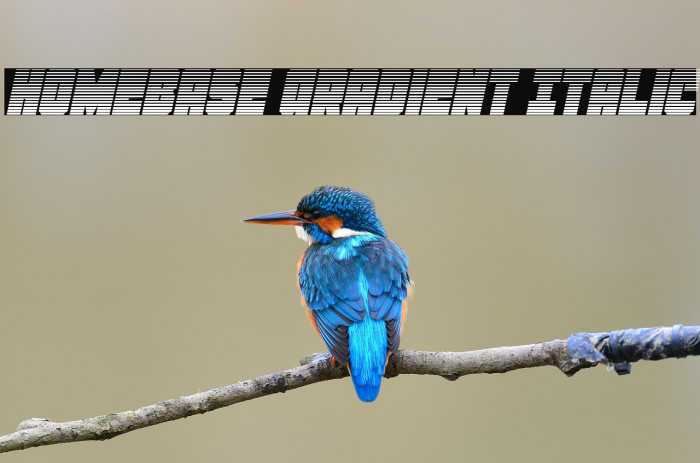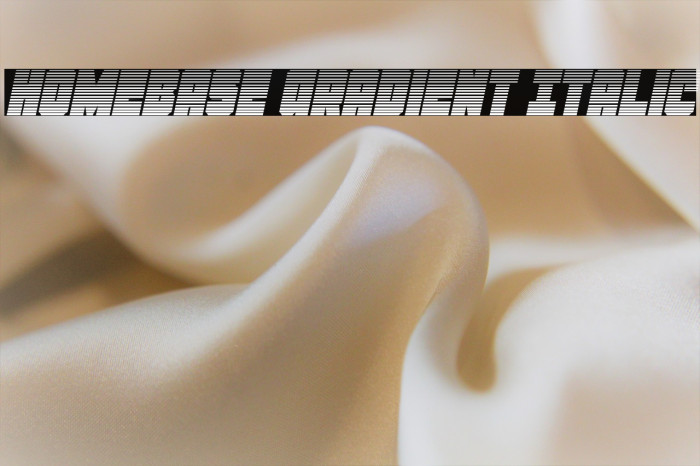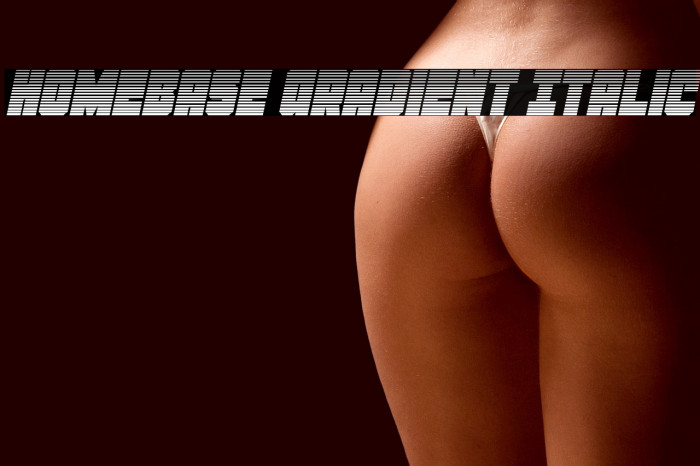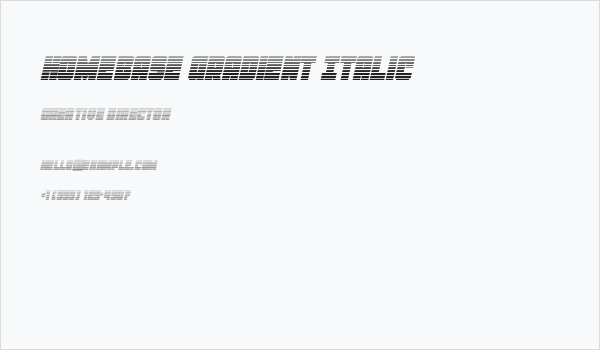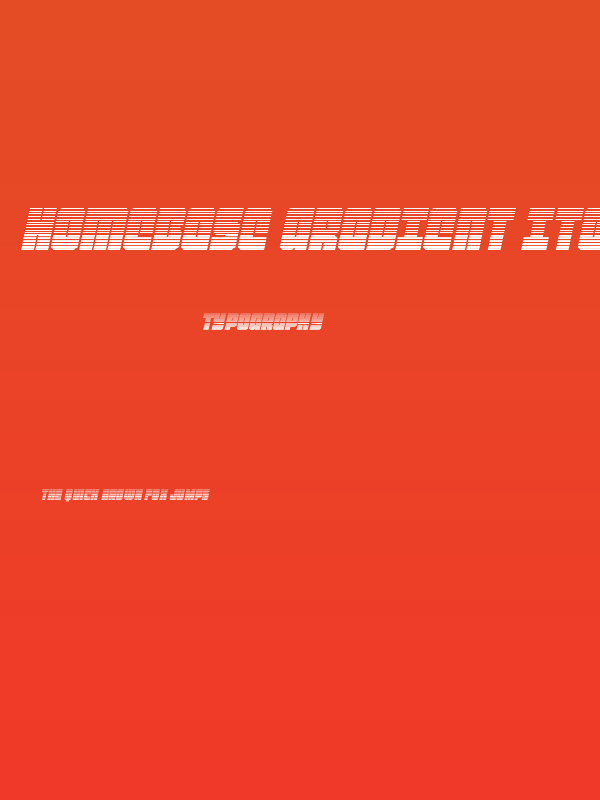
Homebase Gradient Italic Font
Homebase Gradient Italic Description
This font features a bold, italicized style with a distinctive gradient effect created by horizontal lines. The characters are wide and have a strong presence, making them ideal for attention-grabbing designs. The uppercase and lowercase letters maintain a consistent width, contributing to a uniform appearance. The numbers and special characters are designed to match the boldness of the letters, ensuring a cohesive look across all text elements. The gradient effect adds a modern and dynamic touch, making this font suitable for contemporary projects.
Proposed ProjectsIdeal for modern posters, digital artwork, branding, and headlines that require a bold and dynamic appearance.